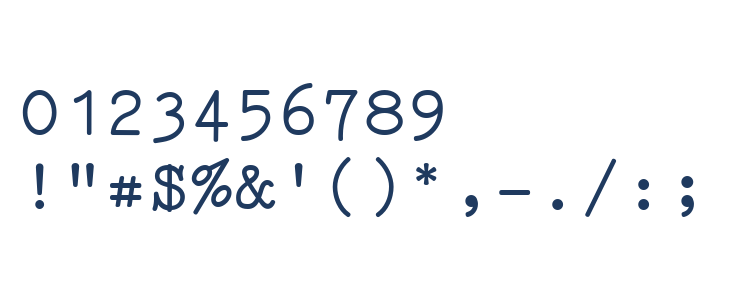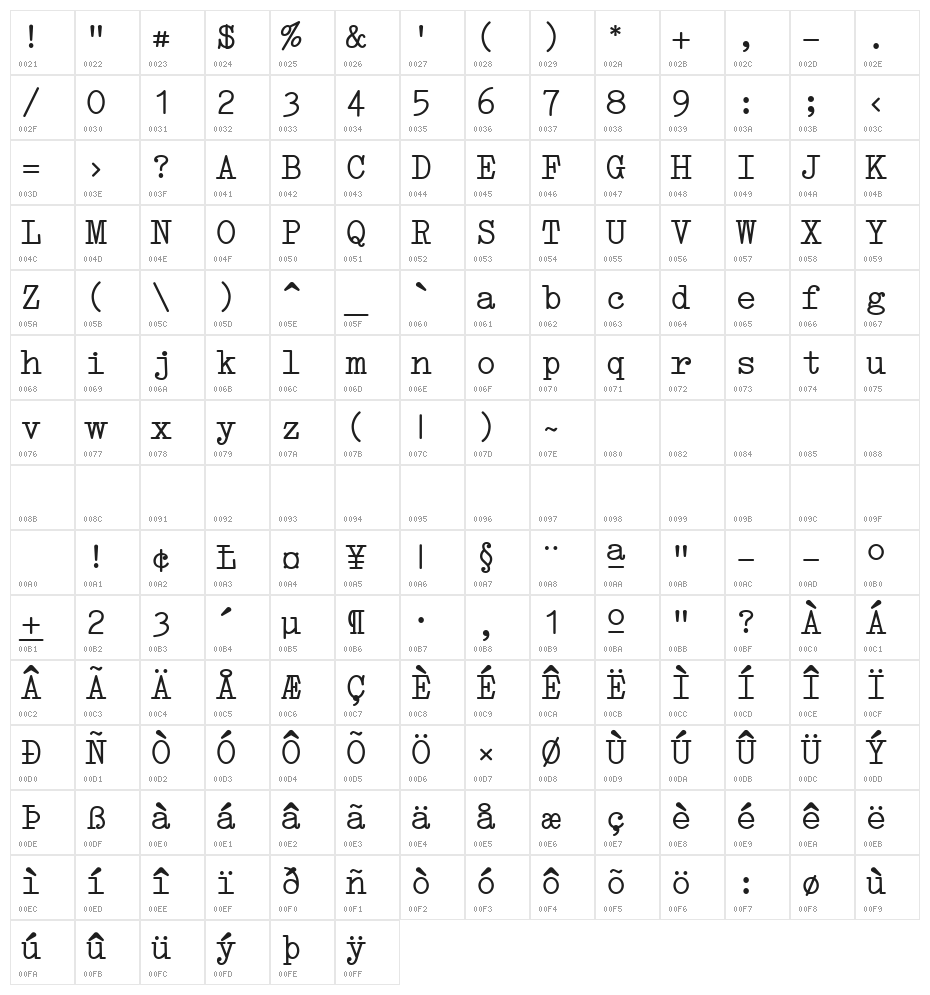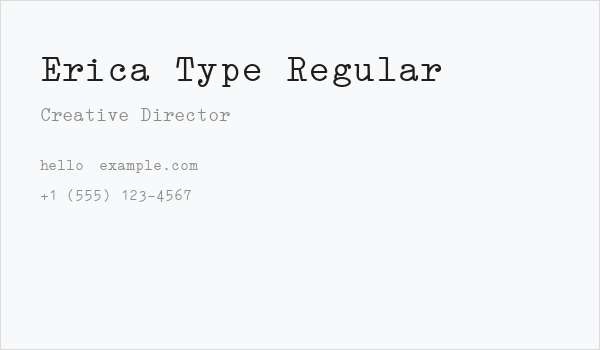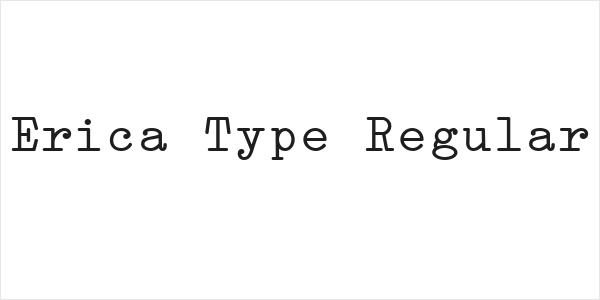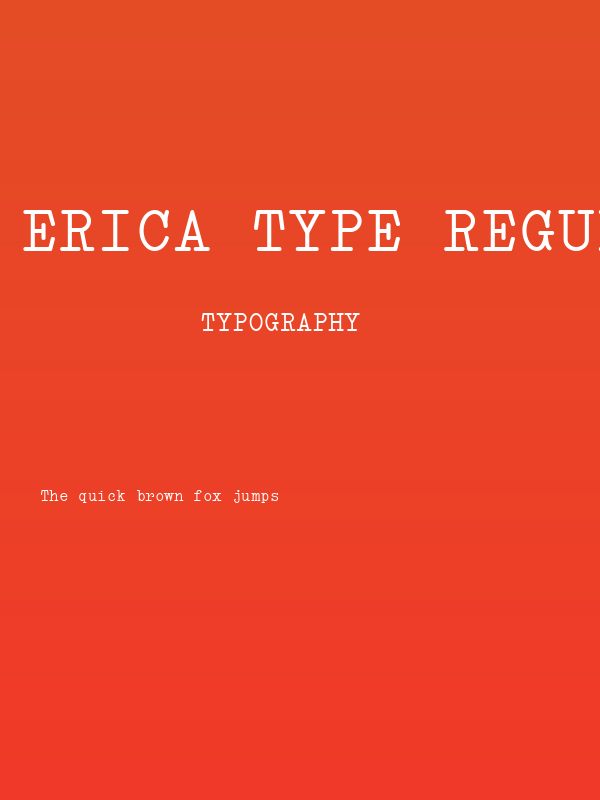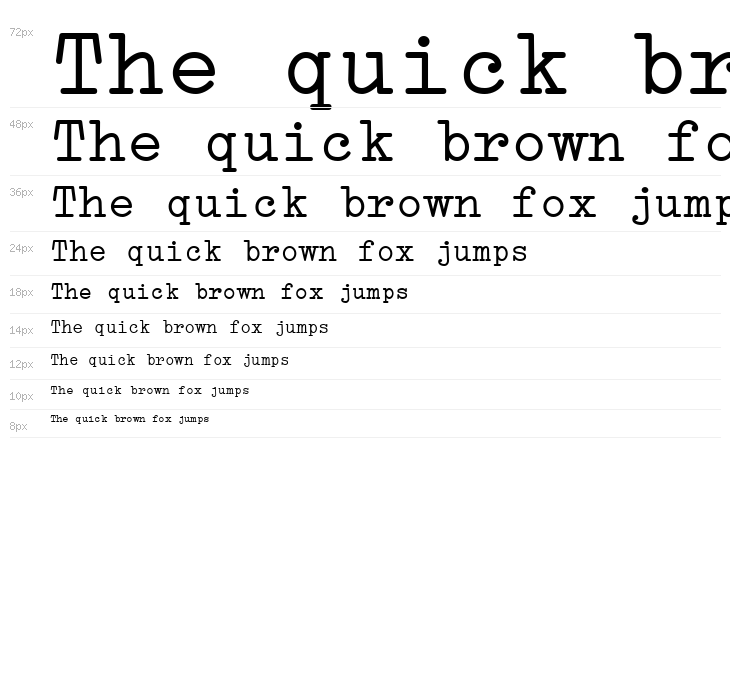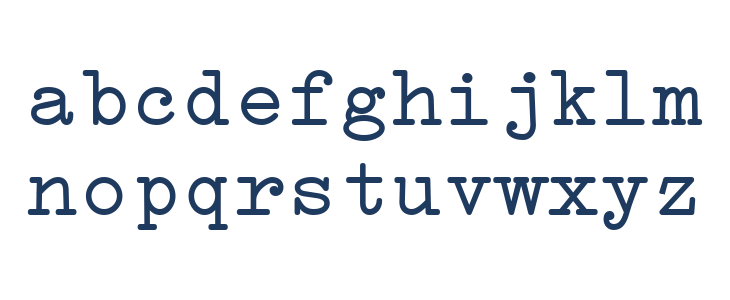
Erica Type Regular Font
Erica Type Regular Description
This typeface features a classic, monospaced design with a clean and structured appearance. Each character is evenly spaced, providing a uniform look that is ideal for coding and tabular data. The font includes a full set of uppercase and lowercase letters, numerals, and a variety of special characters. Its design is reminiscent of typewriter fonts, with a modern twist that makes it suitable for both digital and print media. The characters have a consistent stroke width, contributing to a balanced and harmonious aesthetic.
| Use Case | Coding, Technical documents, Tabular data |
| Proposed Projects | Ideal for coding, technical documents, and any project requiring precise alignment. |